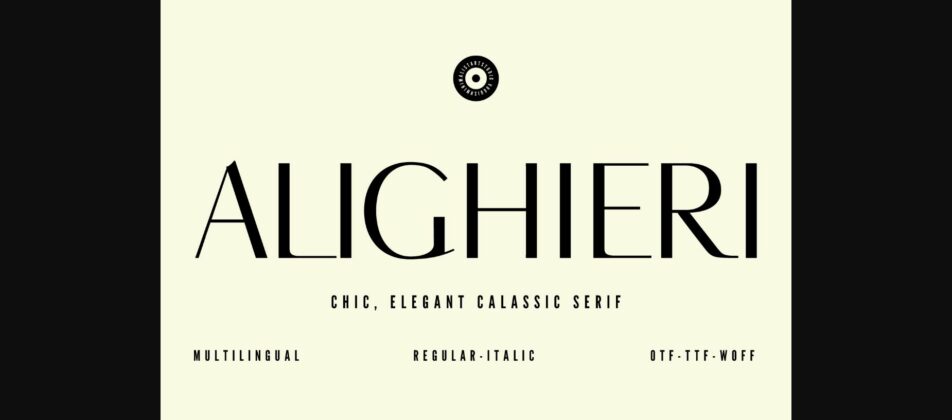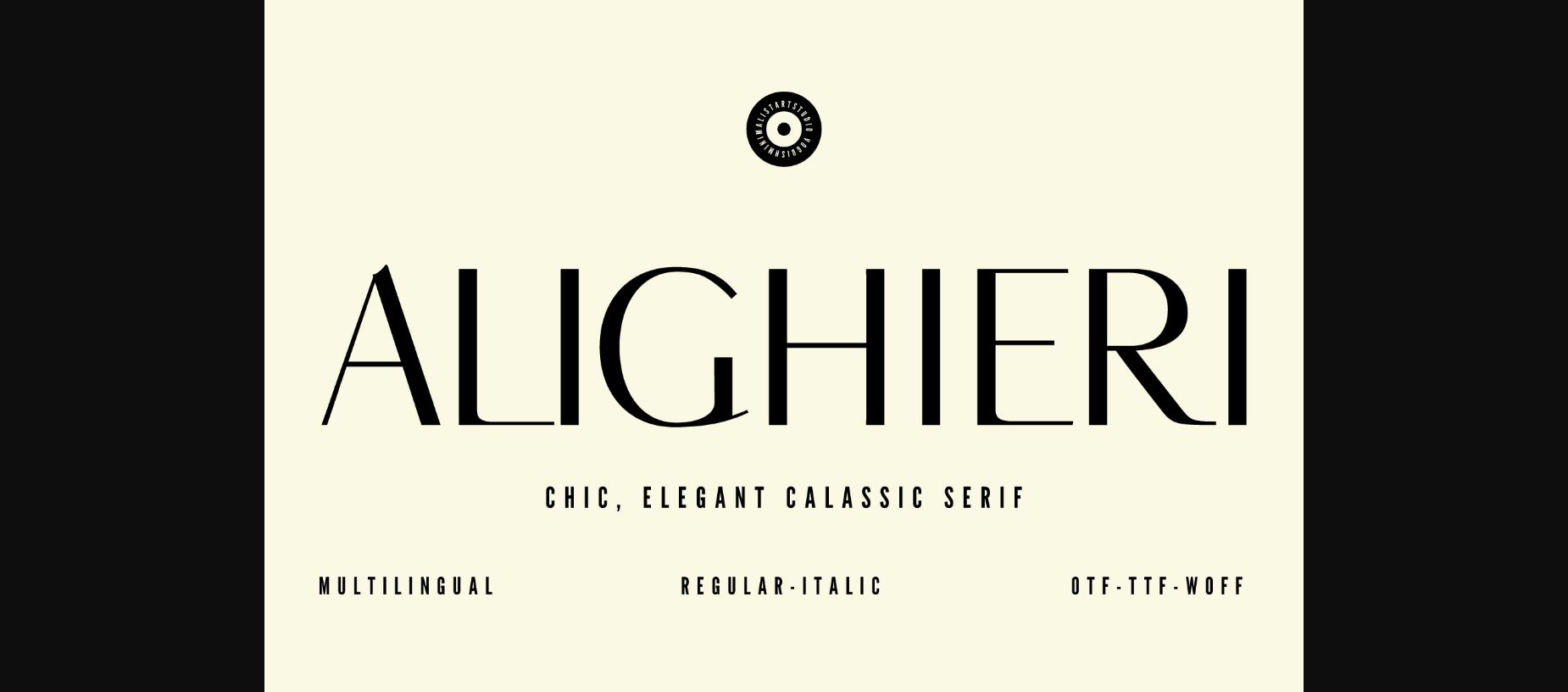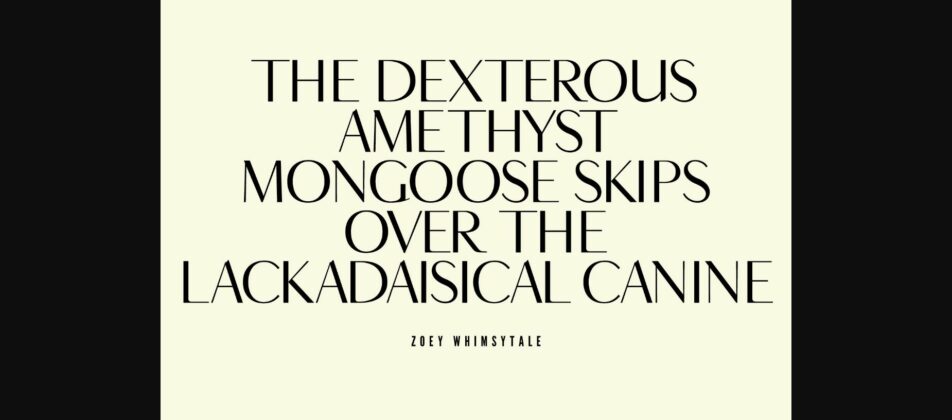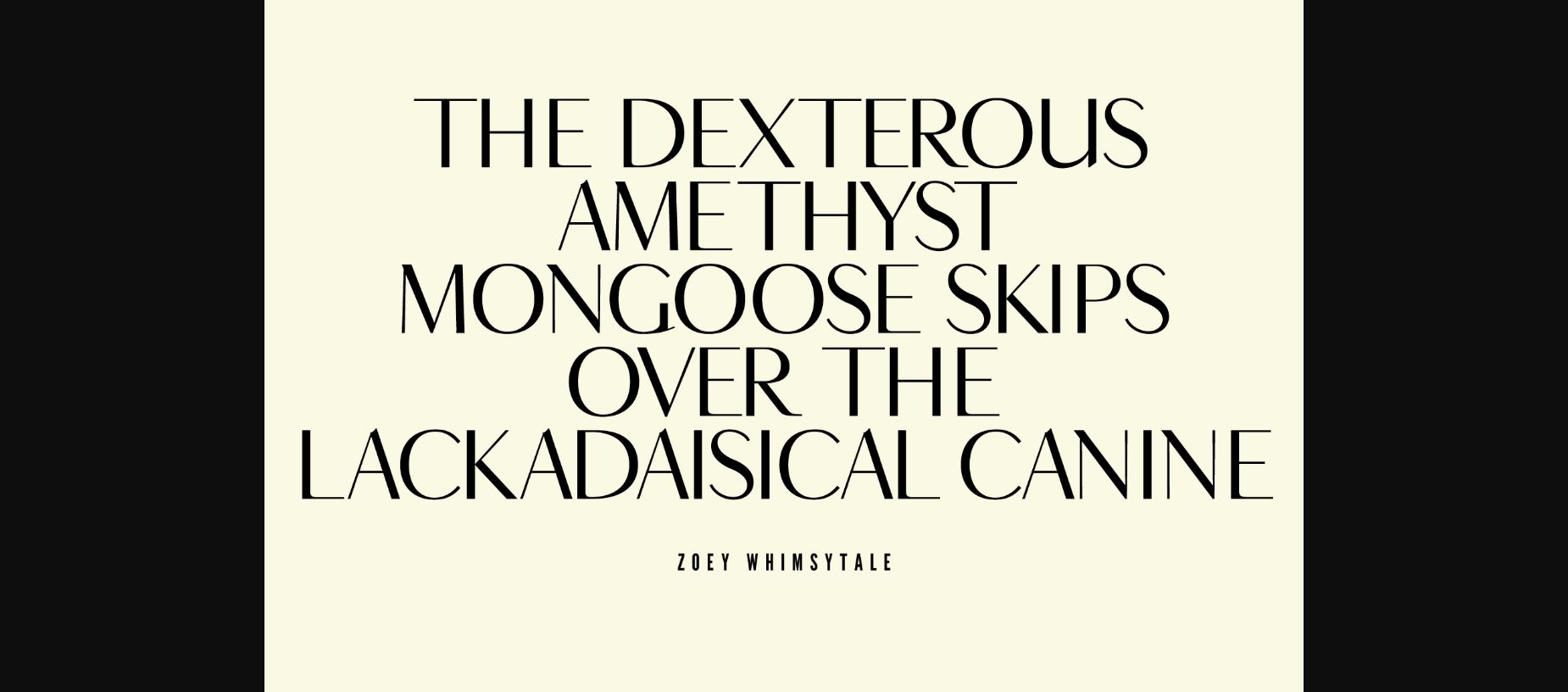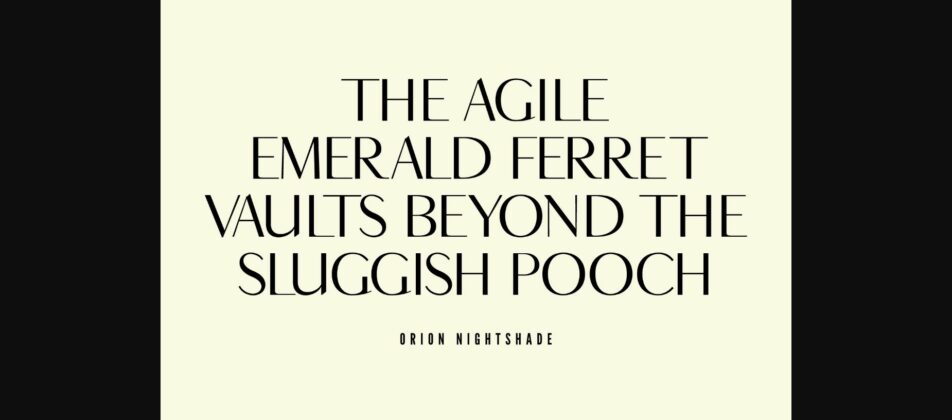
About Alighieri Font
Alighieri is a modern sans-serif typeface that seamlessly blends timeless elegance and contemporary flair. Its meticulously crafted letterforms exude sophistication, making it perfect for luxury branding or stylish publications. With balanced lines and versatility, Alighieri brings a touch of classic beauty to any project, ensuring your message is conveyed with clarity and poise. Choose Alighieri to transform your designs into timeless masterpieces that capture both tradition and modernity.